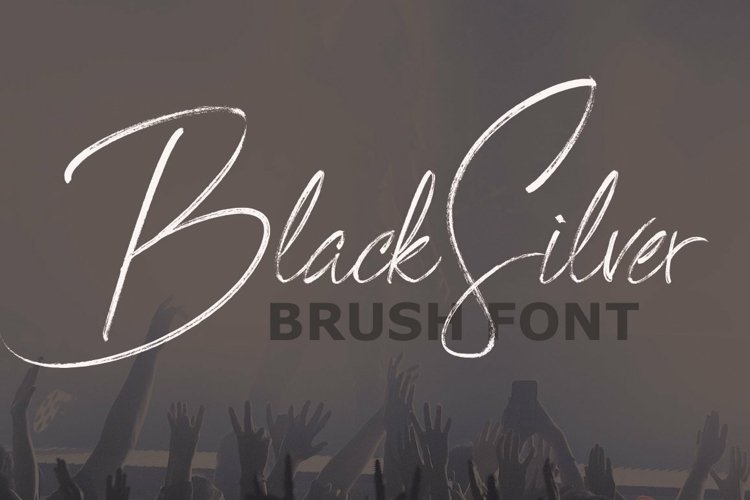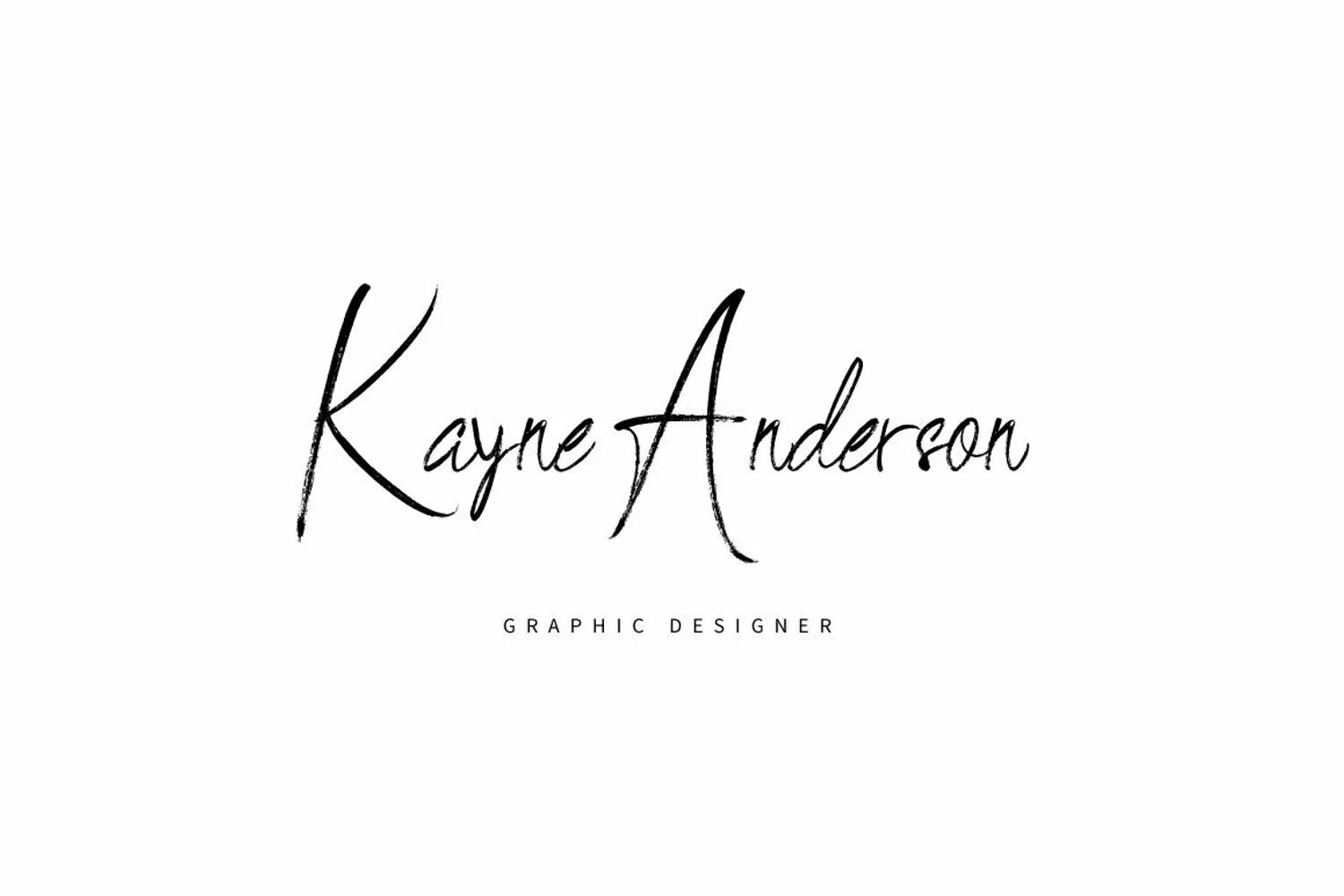
BlackSilver Brush is perfect brush
script
typeface crafted from contemporary brush pen to guarantee you in creating attractive
hand-made typography within a second. ;) Use BlackSilver to help you create
custom hand-lettering with the look of amazing and astonish.